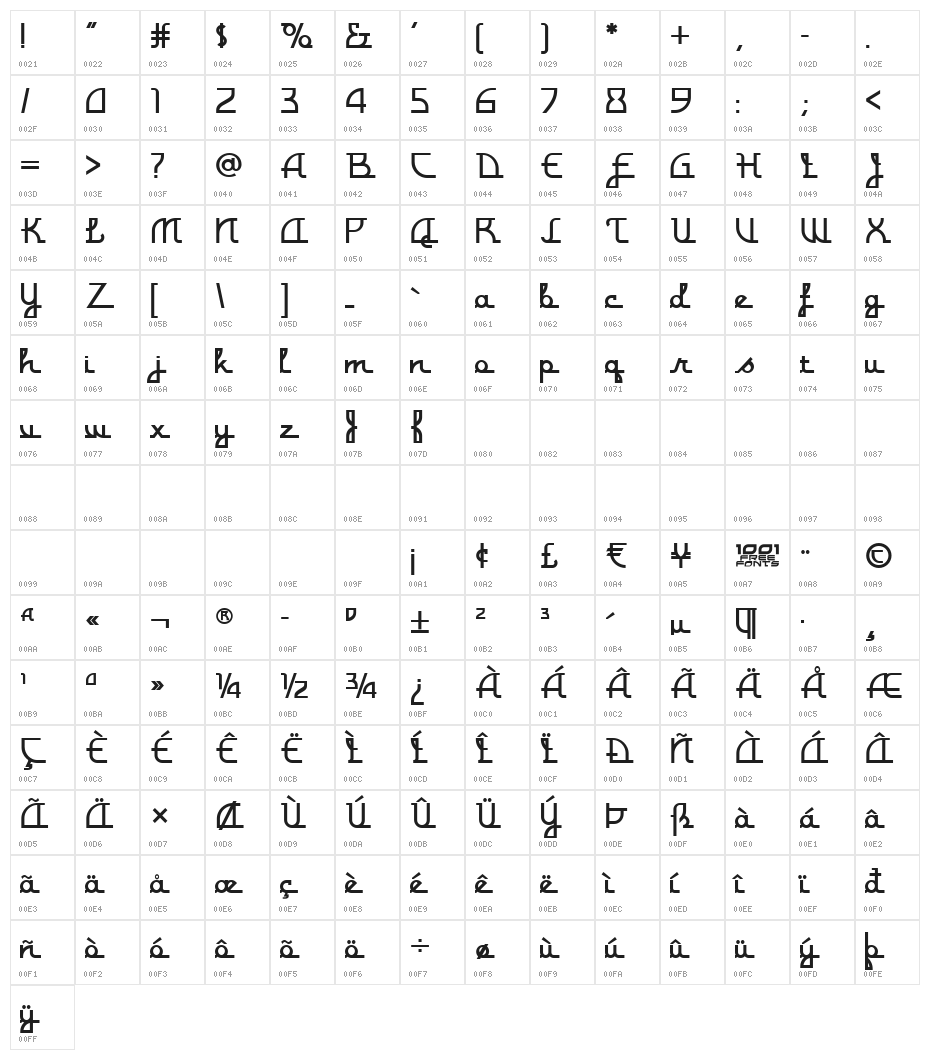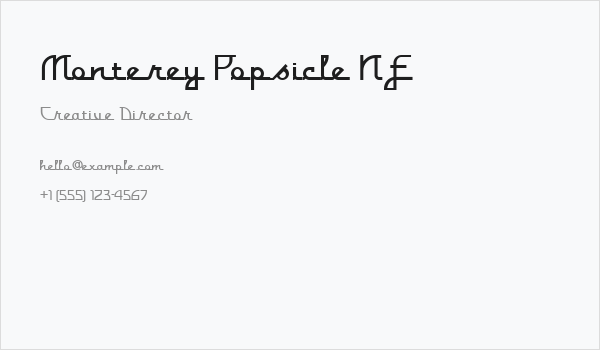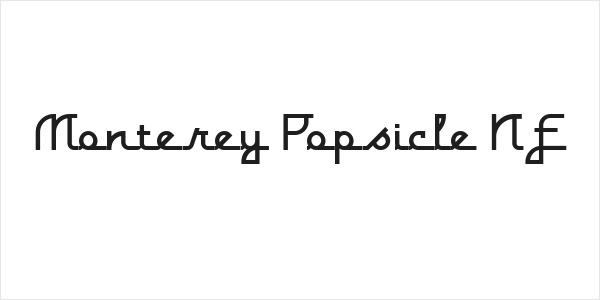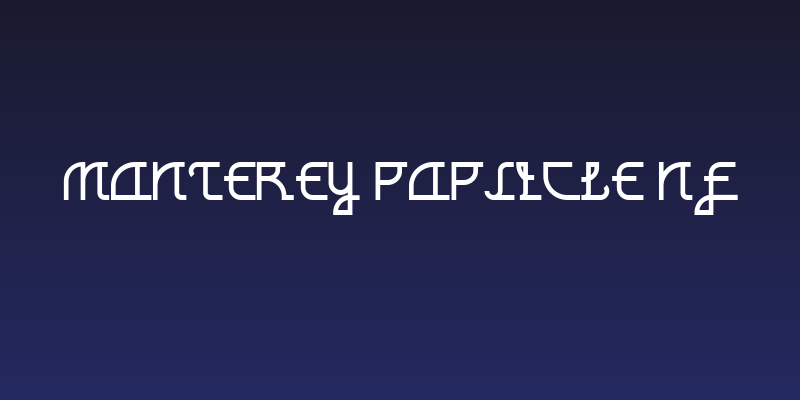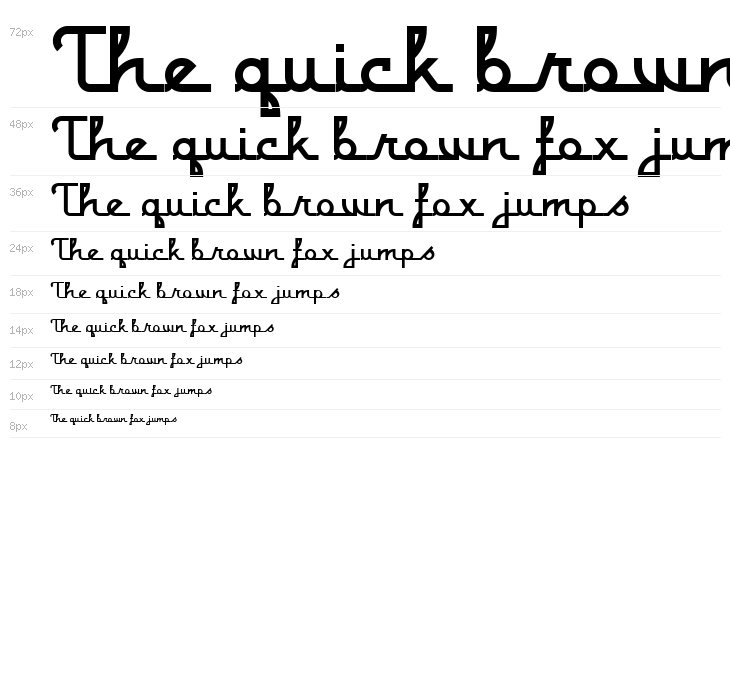
Monterey Popsicle NF Font
Monterey Popsicle NF Description
This font features a unique blend of geometric and script elements, creating a playful yet structured appearance. The uppercase letters are characterized by angular, geometric shapes with a consistent stroke width, giving them a modern and slightly futuristic feel. The lowercase letters, in contrast, incorporate more fluid and cursive elements, adding a whimsical touch. Numbers and special characters maintain the geometric style, ensuring consistency across the font. The overall design is bold and eye-catching, making it suitable for creative and artistic projects.
| Proposed Projects | Ideal for creative branding, poster designs, and artistic projects that require a unique and modern touch. |